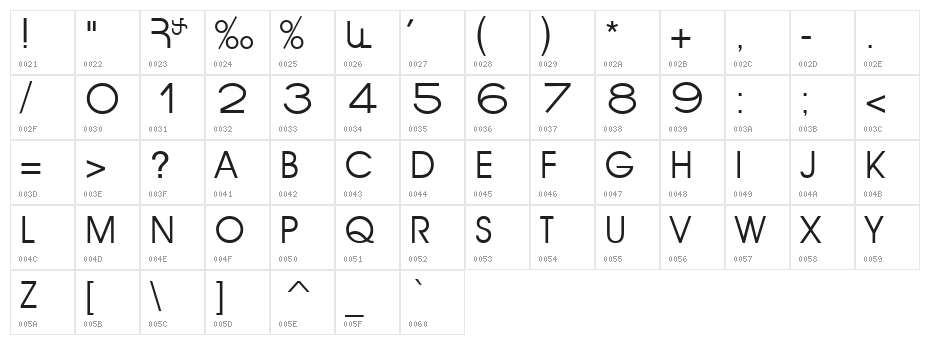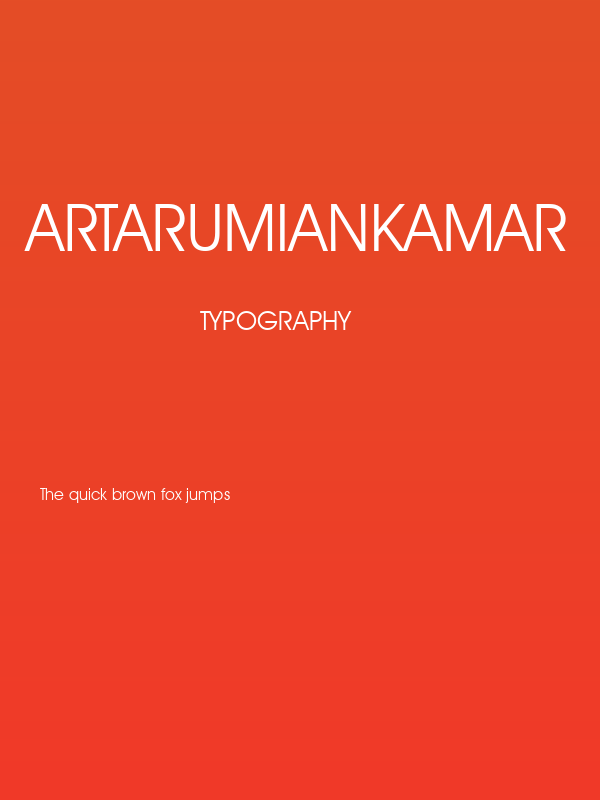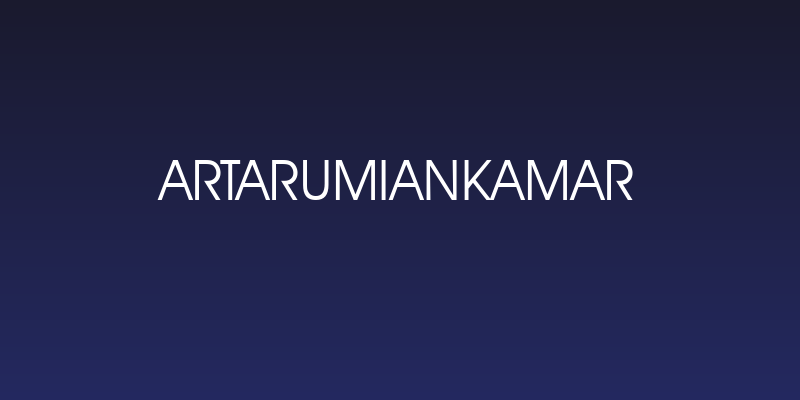
ArTarumianKamar Font
ArTarumianKamar Description
This font features a clean and modern sans-serif style with geometric influences. The characters are well-balanced, with uniform stroke widths that contribute to a harmonious appearance. The uppercase letters are bold and assertive, while the lowercase letters maintain a friendly and approachable look. The numerals are clear and easy to read, making them suitable for various applications. Special characters are thoughtfully designed, maintaining the overall aesthetic of the font. The consistent line weight and open counters enhance readability, making it versatile for both digital and print media.